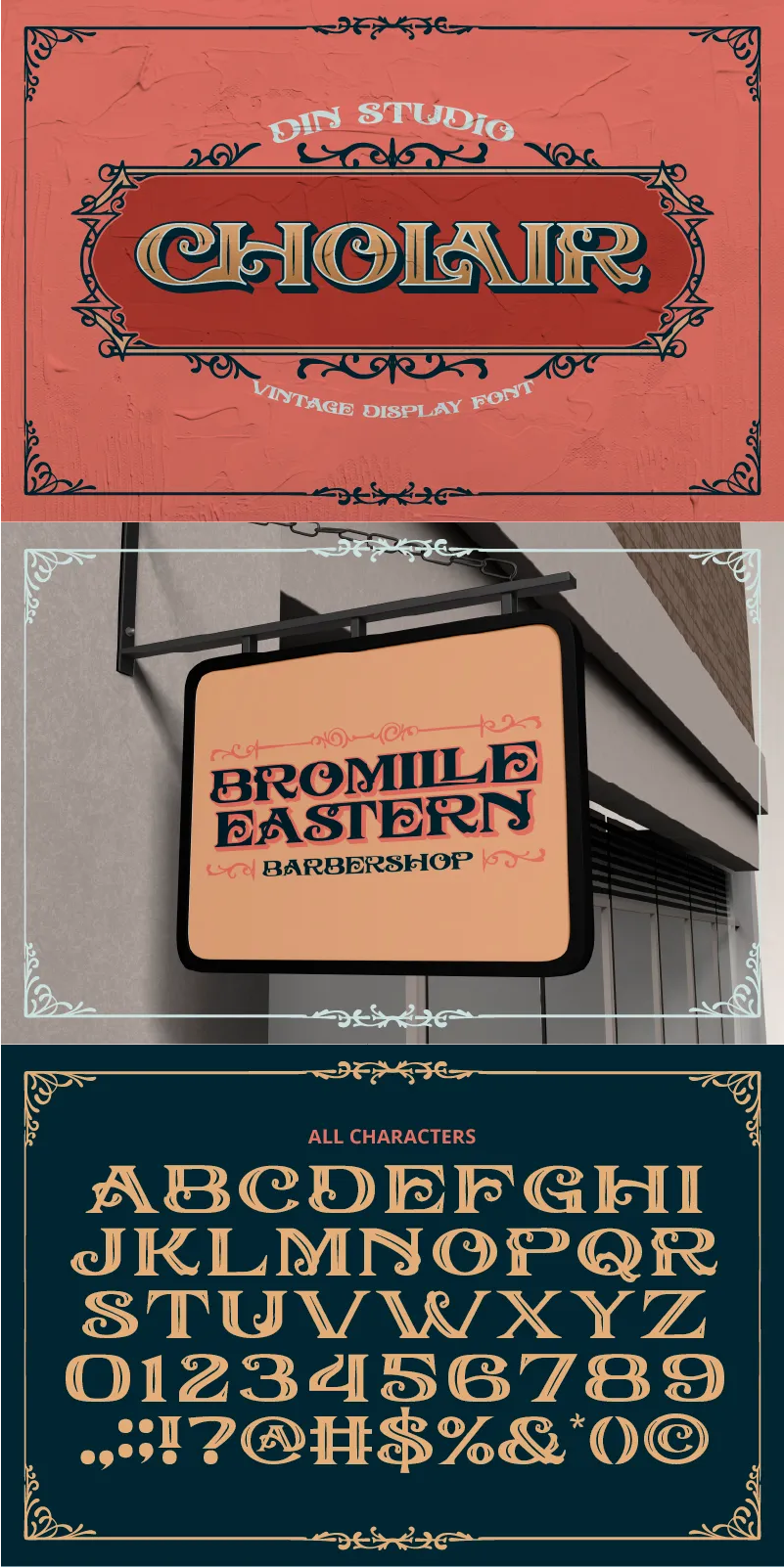
Cholair Font
About Cholair
Cholair, a bold and distinctive display font that combines vintage elegance with modern creativity. Designed in all uppercase letters, Cholair designed in a thick weight and unique letter shapes that set it apart from the crowd. With its consistent letter size and eye-catching inline and extrude design, this font brings depth and dimension to any project. Cholair delivers both charm and impact with its timeless
vintage style. This font gives ornaments as extra.